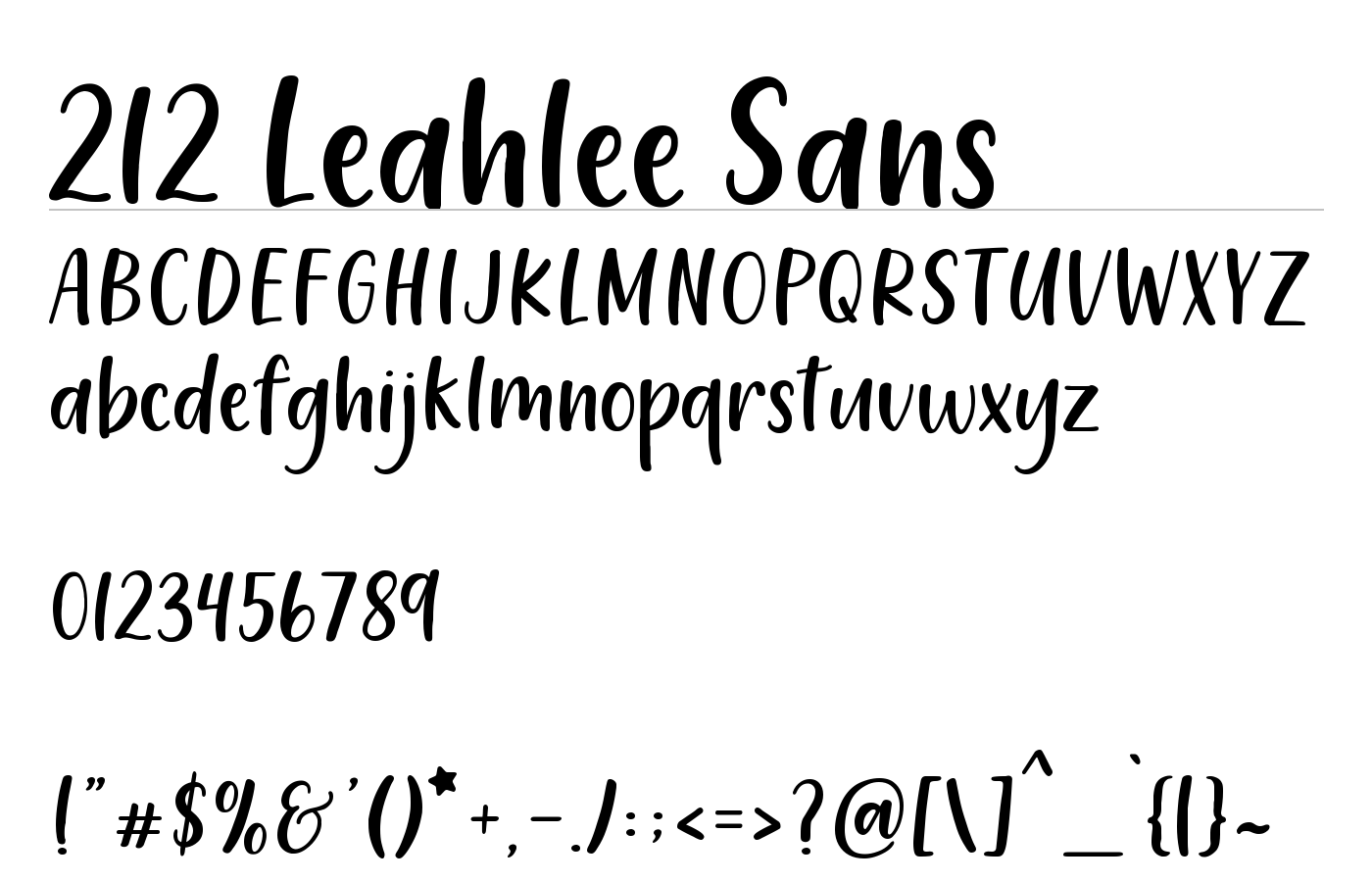
212 Leahlee Sans is a playful and casual sans serif font with a handwritten feel, featuring moderately tall x-height and smooth, rounded strokes that add warmth and approachability. Its slender, slightly condensed letterforms and upright stance make it ideal for friendly branding, informal headlines, and creative projects seeking a personal touch. This font works well in designs that want to convey charm and originality without sacrificing readability.
212 Leahlee Sans Font
About 212 Leahlee Sans Font
| Font family | 212 Leahlee Sans Font |
| Designer | Elizabeth McLain |